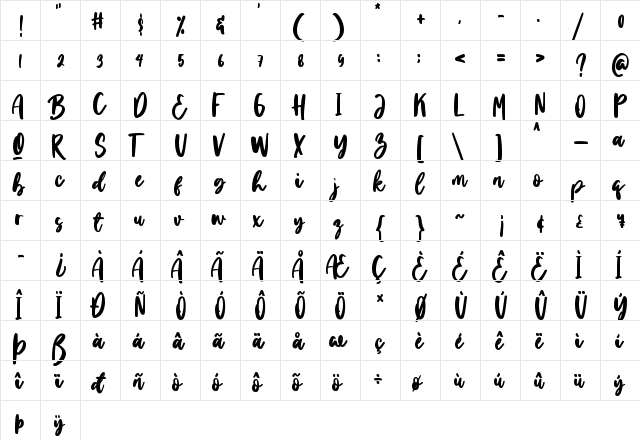
Homeday Regular Font Preview
Homeday Regular
Homeday Regular Font Details
| Designer | Muhamad Yusron Billah |
Design Context for Homeday Typeface
Homeday is a composed and adaptable typeface that performs quietly and consistently across a wide range of design contexts.